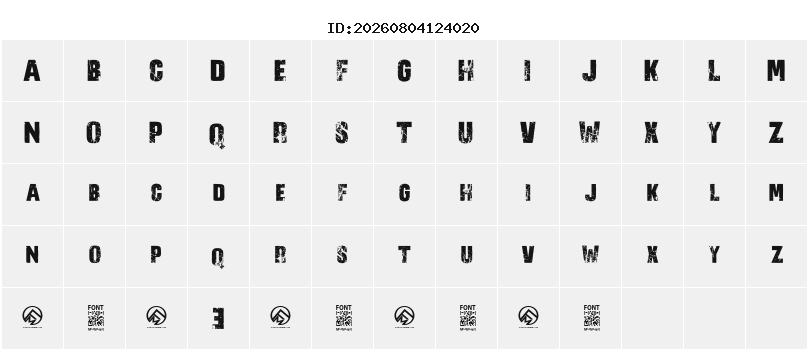
• Font Name: No R3verence
• Full Font Name: No R3verence Regular
• Designer: Font Monger
• Manufacturer: Font Monger
• Description: No R3verence Regular is a font by Font Monger, designed by Font Monger in 2015.
About No R3verence.ttf
No R3verence.ttf is a modern, elegant sans-serif font designed for ultimate readability and visual harmony. Perfect for branding, headlines, web design, and print materials.